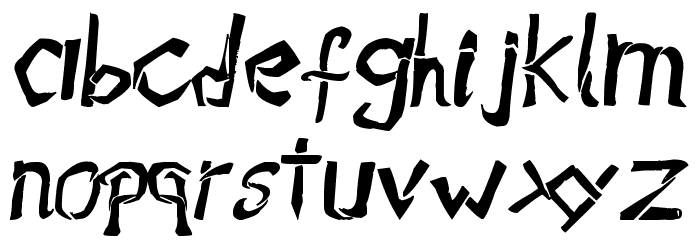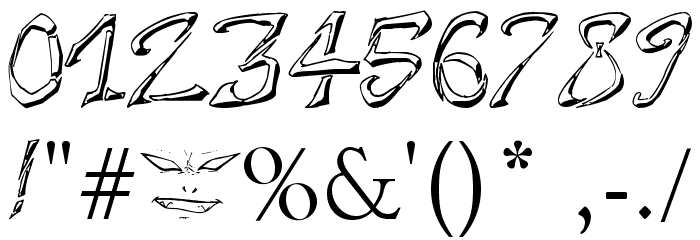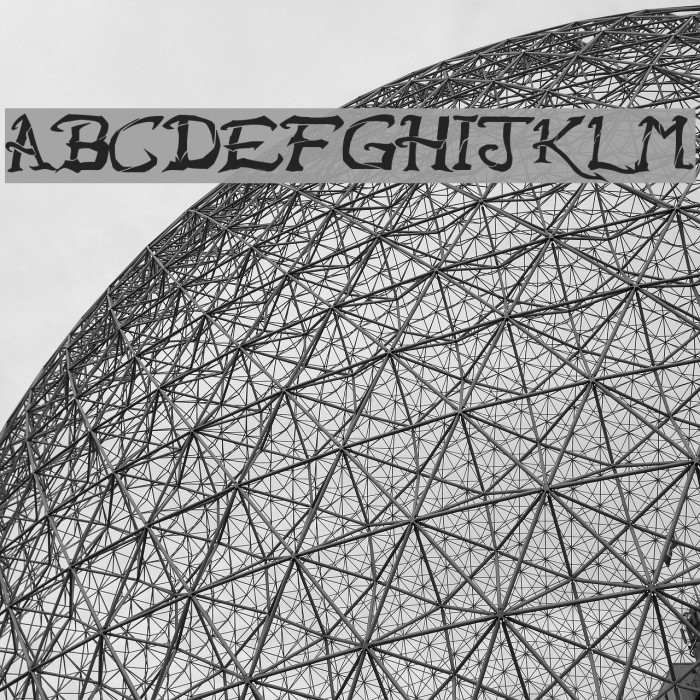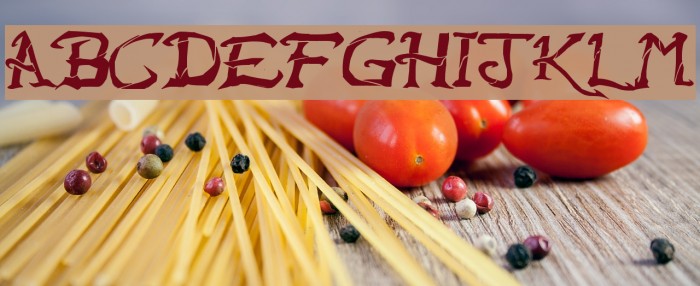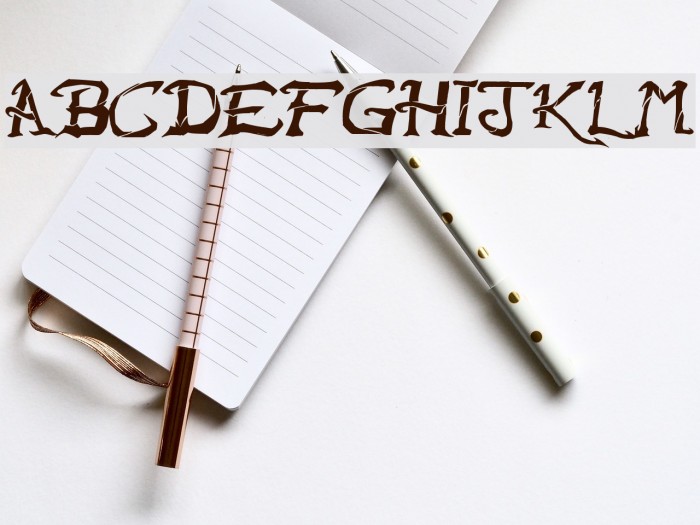
Raslani Âmes Brisées Font
This font features a dynamic and edgy design, characterized by sharp, angular strokes and a slightly distressed appearance. The uppercase letters exhibit a bold, jagged style, while the lowercase letters maintain a consistent yet slightly more fluid form. Numbers and special characters follow the same aesthetic, adding a unique flair to the overall look. The font's irregular edges and varying line thickness contribute to its distinctive, rebellious feel, making it ideal for projects that require a bold statement.
A bold, edgy font with sharp, angular strokes and a distressed appearance.
- Proposed Projects: Perfect for album covers, posters, and branding that seeks to convey a sense of rebellion or edginess.